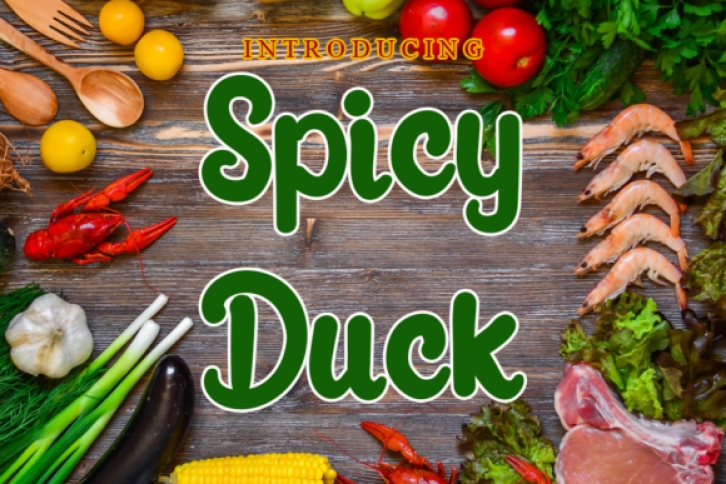
Spicy duck is a smooth, elegant and flowing handwritten font. It has beautiful and balanced characters, and as a result, it fits a wide variety of designs. Add this font to your favorite ideas and notice how it makes them come alive!